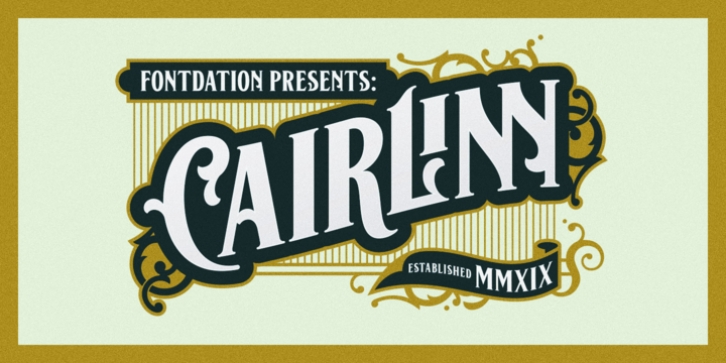
New year, new font. Let us introduce our first font on 2019: Cairlinn. A clean serif that is forged with the spirit of vintage typography. It is heavily inspired by the old letters that are used in classic advertisements. This 300+ glyphs monster is packed with wide variation of letters, accessible via OpenType features.